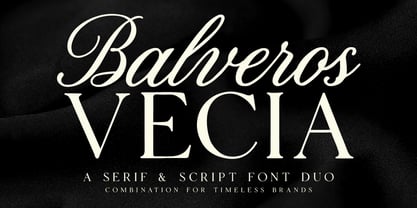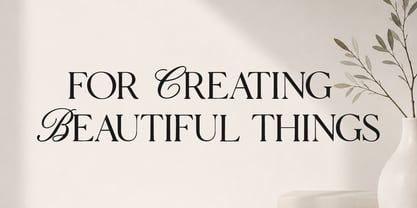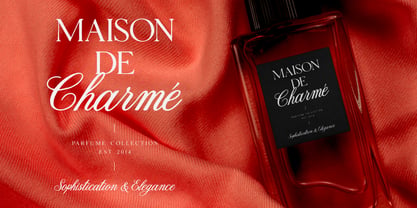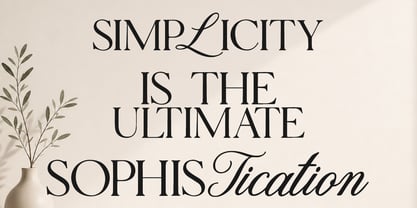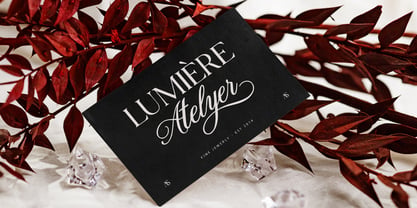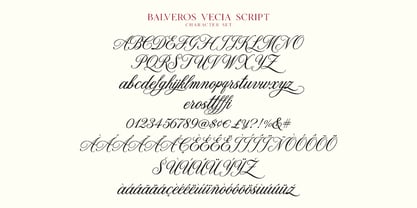
Balveros Vecia Script
Balveros Vecia is a sophisticated font duo that pairs a refined, high-contrast serif typeface with a graceful, flowing calligraphic script. Designed to work in perfect harmony, the clean structure of the serif provides a modern, high-end feel, while the sweeping curves and elegant swashes of the script introduce a touch of warmth and artistry. This pairing offers complete creative versatility, allowing for striking typography combinations that immediately command attention.
Ideal for high-end brand identities, luxury product packaging, editorial layouts, and event stationery, this font duo brings an aura of timeless prestige to any creative project. The comprehensive character set includes full multilingual support, numerals, punctuation, and decorative alternates, making it an essential typographic tool for creating memorable, polished aesthetics across various digital and visual media.